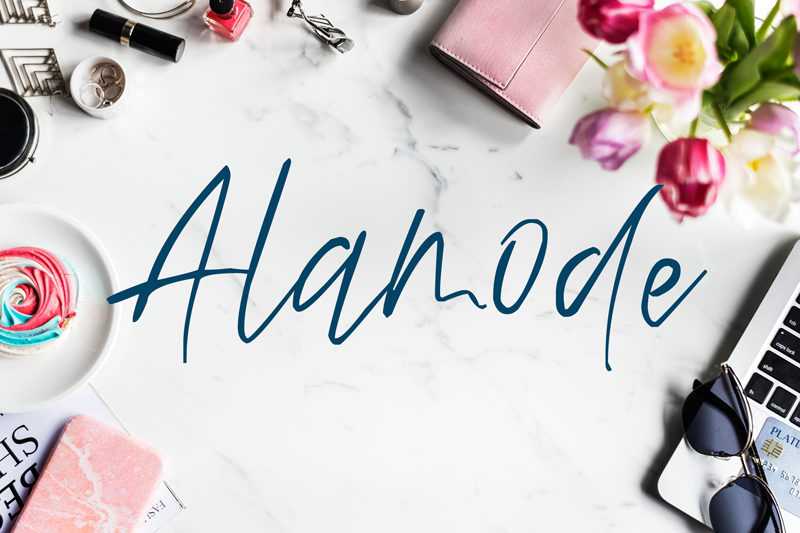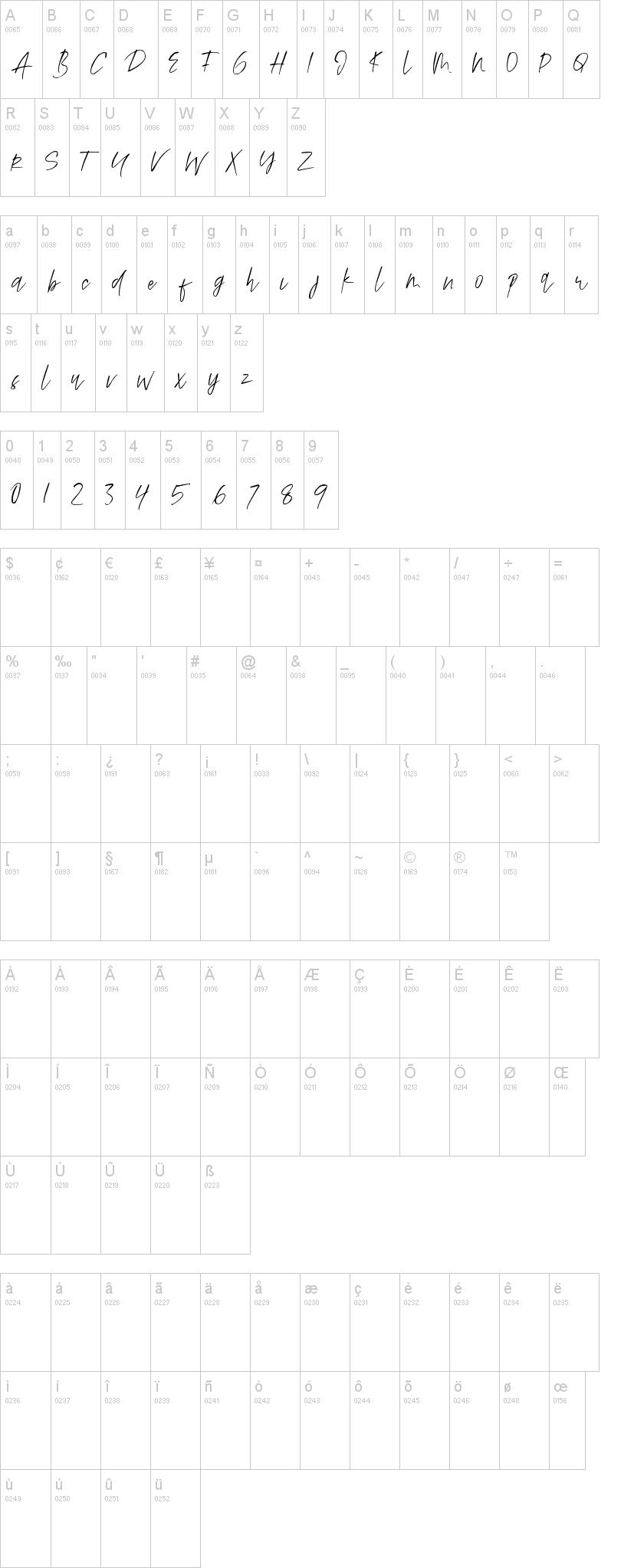
This enchanting font will turn any creative idea into a true standout.
Perfect fit for all of your logos, branding, social media, etc.
Get creative with its unique playfulness, and use it to brighten up any crafting project!